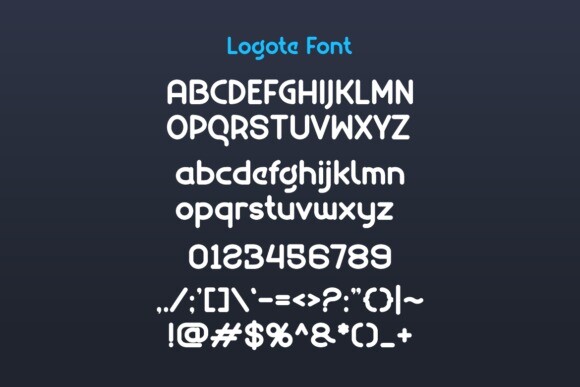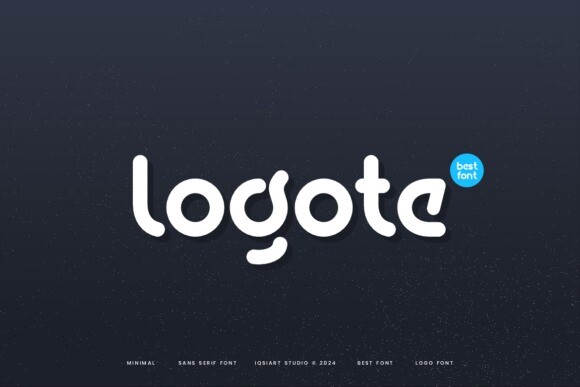
Logote Font
Designer: IqsiartStudio
Logote Font is a clean and modern sans serif logo font. It features simple, smooth letters with no decorative lines or curves. Perfect for creating professional and minimalist designs, it offers a sleek, easy-to-read style, making it great for branding and logos.